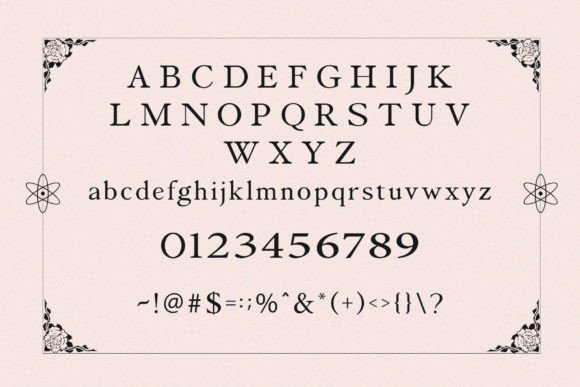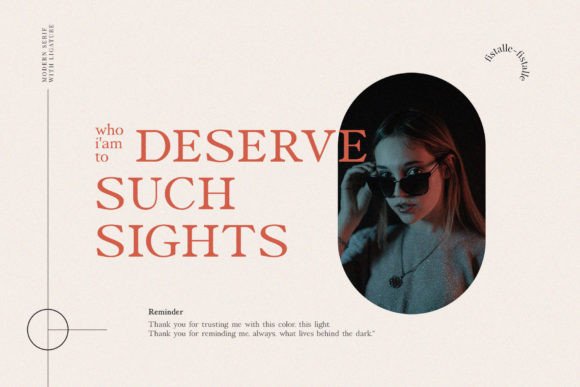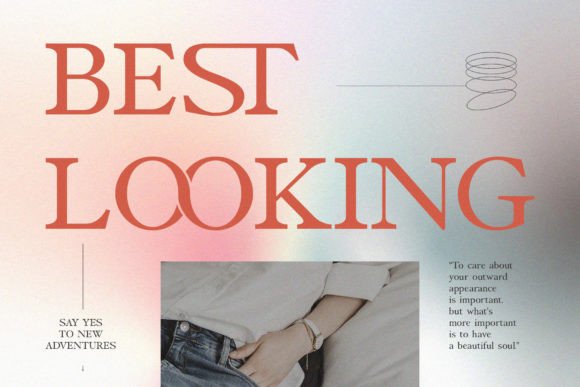
Fistalle Font: A Perfect Balance of Contemporary and Classic
Fistalle Font is a masterclass in balance. Each letter is crafted with clean lines and subtle curves, giving it a sophisticated and stylish look that’s perfect for modern branding, editorial layouts, and professional designs. The font’s PUA encoding means you can access all delightful glyphs and swashes effortlessly, making it a joy to work with.
- ✨ Clean lines and subtle curves: Fistalle’s design is both modern and timeless.
- ✅ PUA encoding: Easy access to glyphs and swashes, making it perfect for creative projects.
- 💡 Versatility: Suitable for branding, editorial layouts, and professional designs.
⚠️ While Fistalle Font is an excellent choice, it’s essential to note that it may not be the best fit for:
- ⚠️ Display or headline use: Fistalle is optimized for body text and may not be bold enough for display purposes.
- 🤔 Script or italic use: Fistalle is a serif font and may not be the best choice for scripts or italics.
The Designer Inspiration Behind Fistalle Font
Fistalle Font was designed with the modern creative in mind. Its creator aimed to craft a font that would balance contemporary and classic design elements, resulting in a sophisticated and stylish look. The design process involved experimenting with different letterforms, curves, and lines to create a unique and versatile font.
Q: What is PUA encoding, and how does it benefit Fistalle Font?
A: PUA (Private Use Area) encoding allows font creators to include additional glyphs and swashes that can be accessed easily. In the case of Fistalle Font, PUA encoding makes it simple to access the font’s delightful glyphs and swashes.
Q: Is Fistalle Font suitable for display or headline use?
A: While Fistalle Font is an excellent choice for body text, it may not be bold enough for display or headline use. Consider using a bolder font for those purposes.